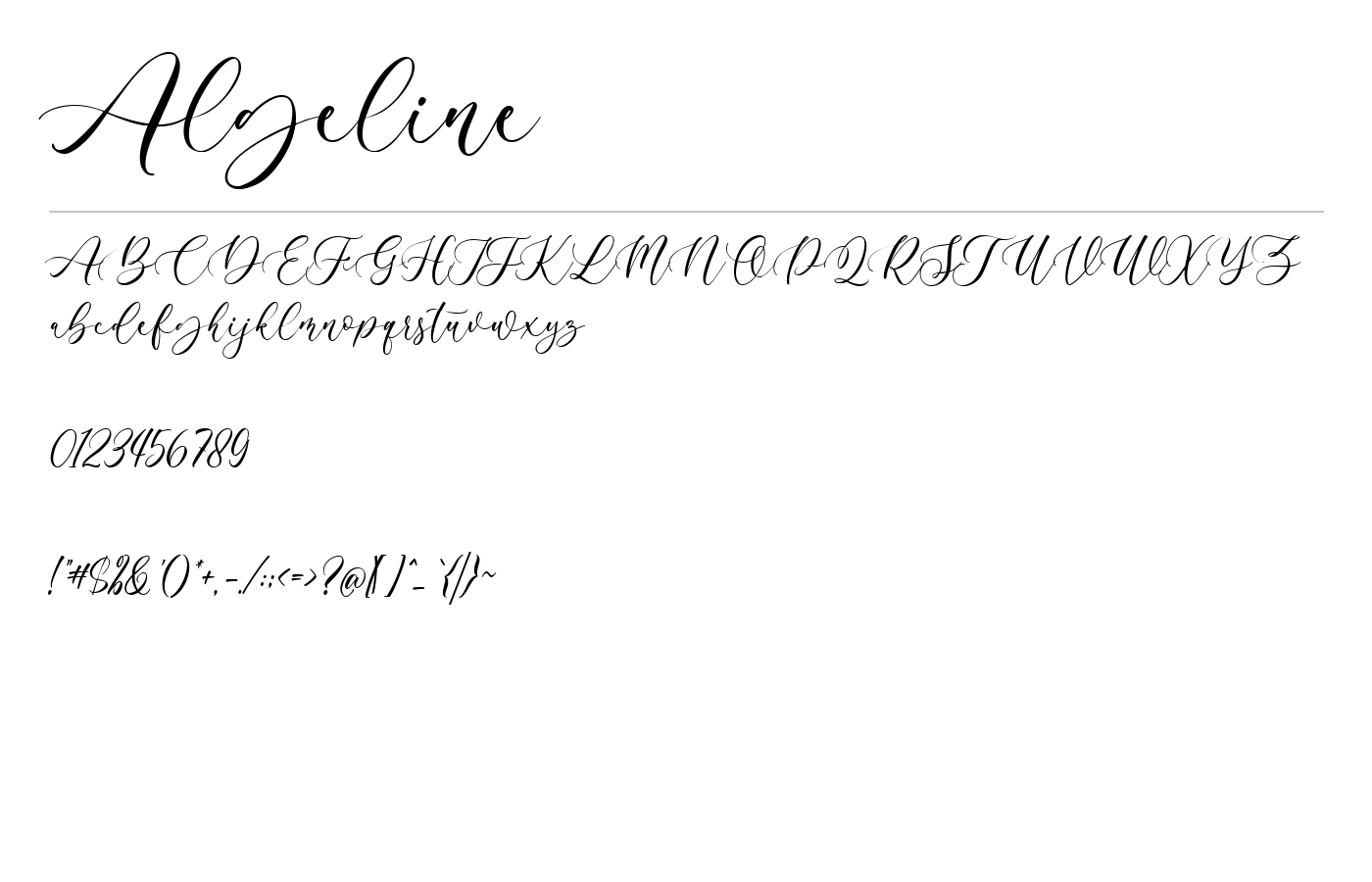
Algeline is an elegant, delicate script font with fluid, graceful strokes and a refined, handwritten style that evokes sophistication and charm. Its slender, slightly varied line weight and intricate letterforms make it perfect for wedding invitations, luxury branding, and feminine editorial designs where a touch of elegance and personal flair is desired. This font works beautifully in headlines or decorative accents, adding a romantic and stylish feel to any project.
Algeline Font
About Algeline Font
| Font family | Algeline Font |